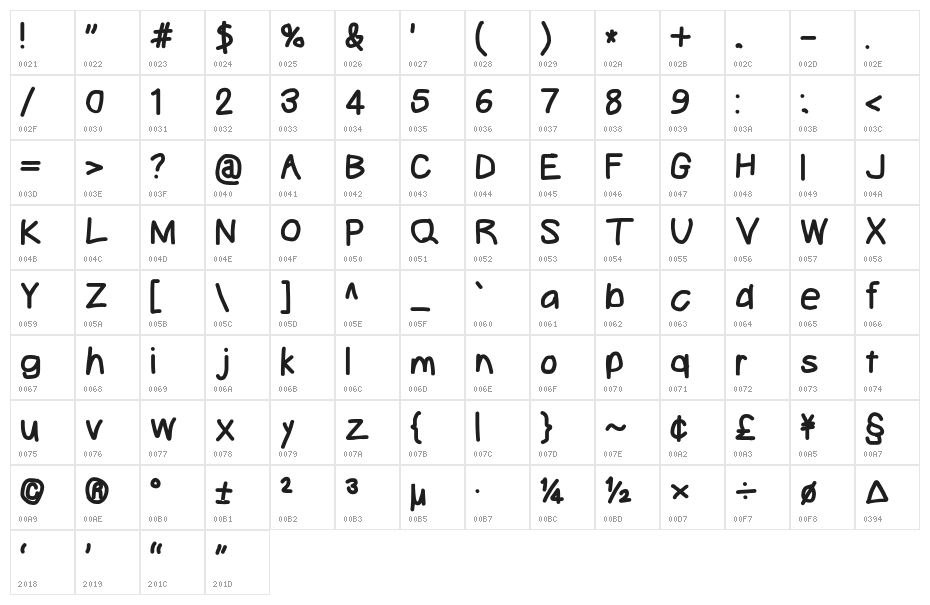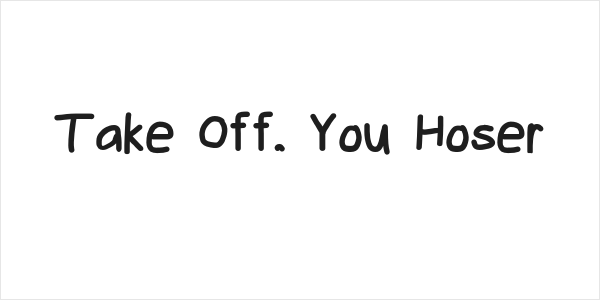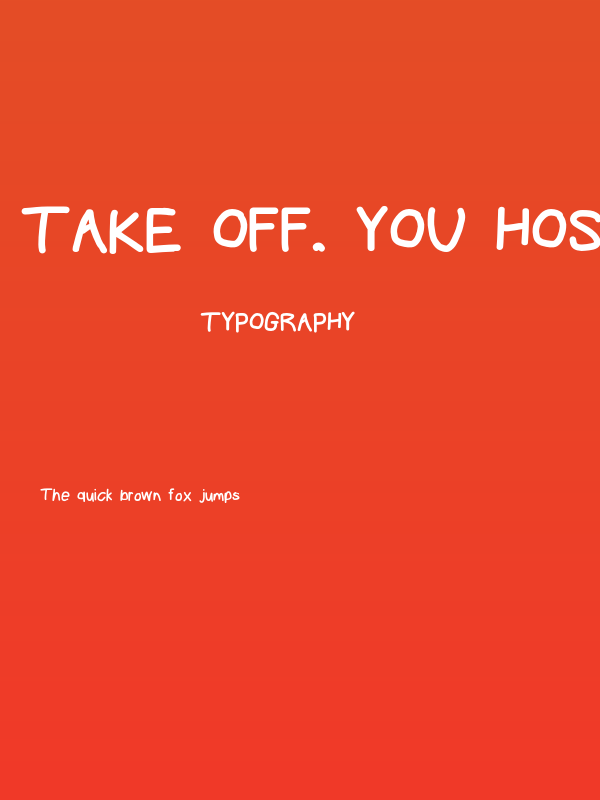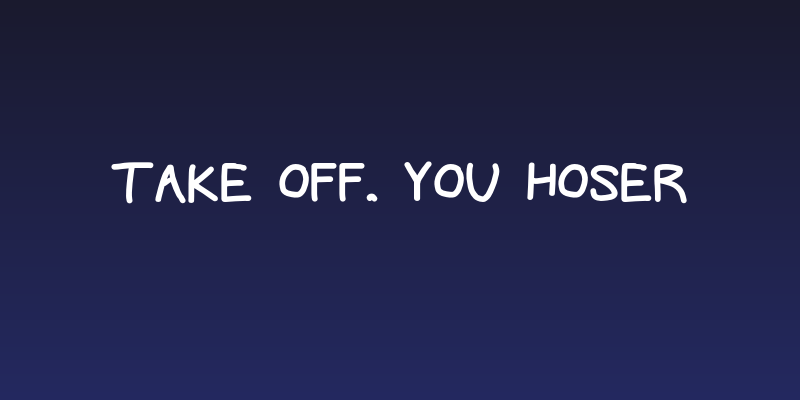
Take Off, You Hoser Font
Take Off, You Hoser Description
This playful and informal font features a handwritten style with a casual, friendly appearance. The letters are rounded and slightly uneven, giving them a whimsical and approachable feel. The uppercase and lowercase characters are distinct, with a consistent stroke width that maintains readability. Numbers and special characters follow the same playful design, making the font versatile for various uses. The overall look is reminiscent of doodles or notes, perfect for projects that require a personal touch.
| Proposed Projects | Ideal for children's books, greeting cards, informal invitations, and playful branding projects. |